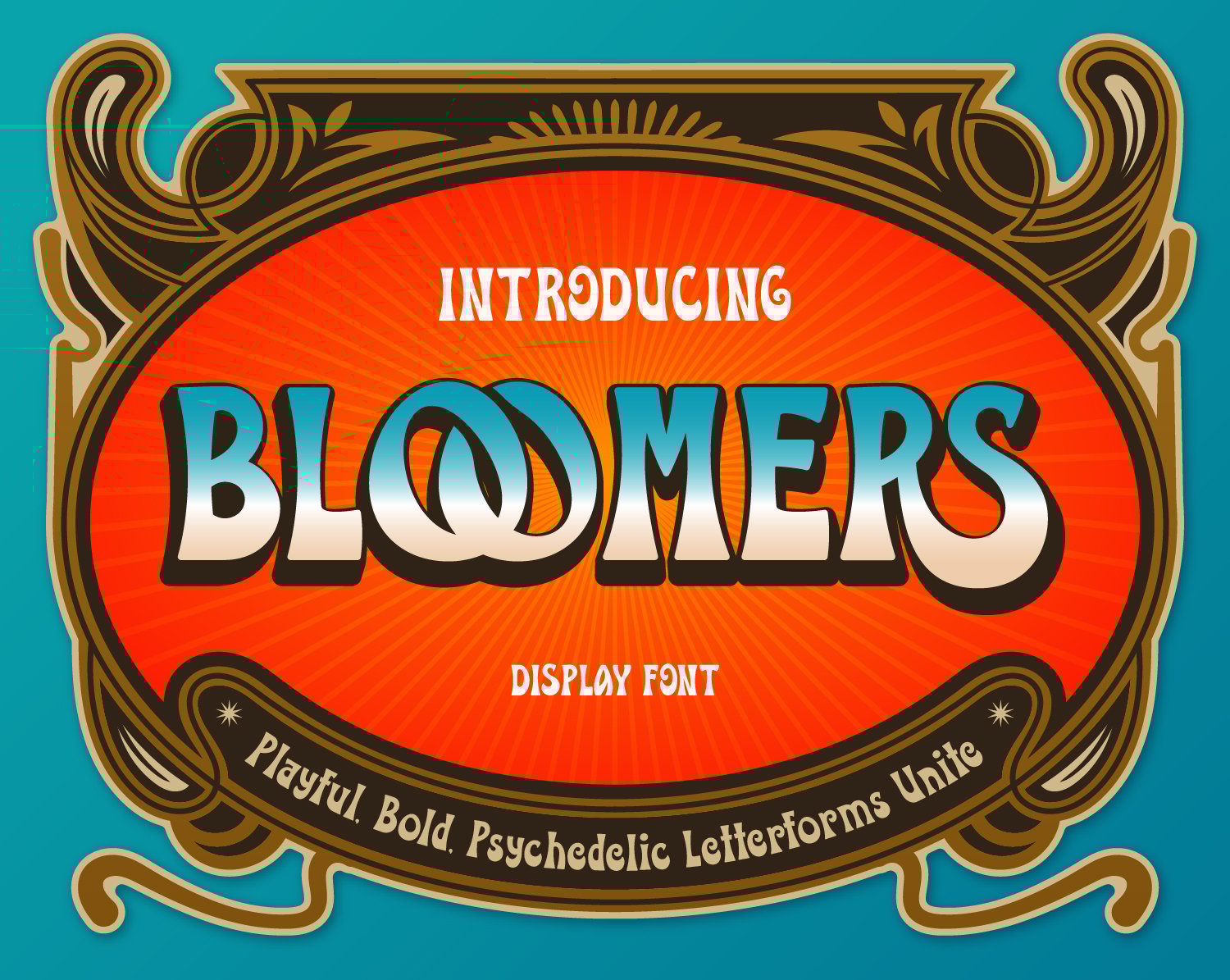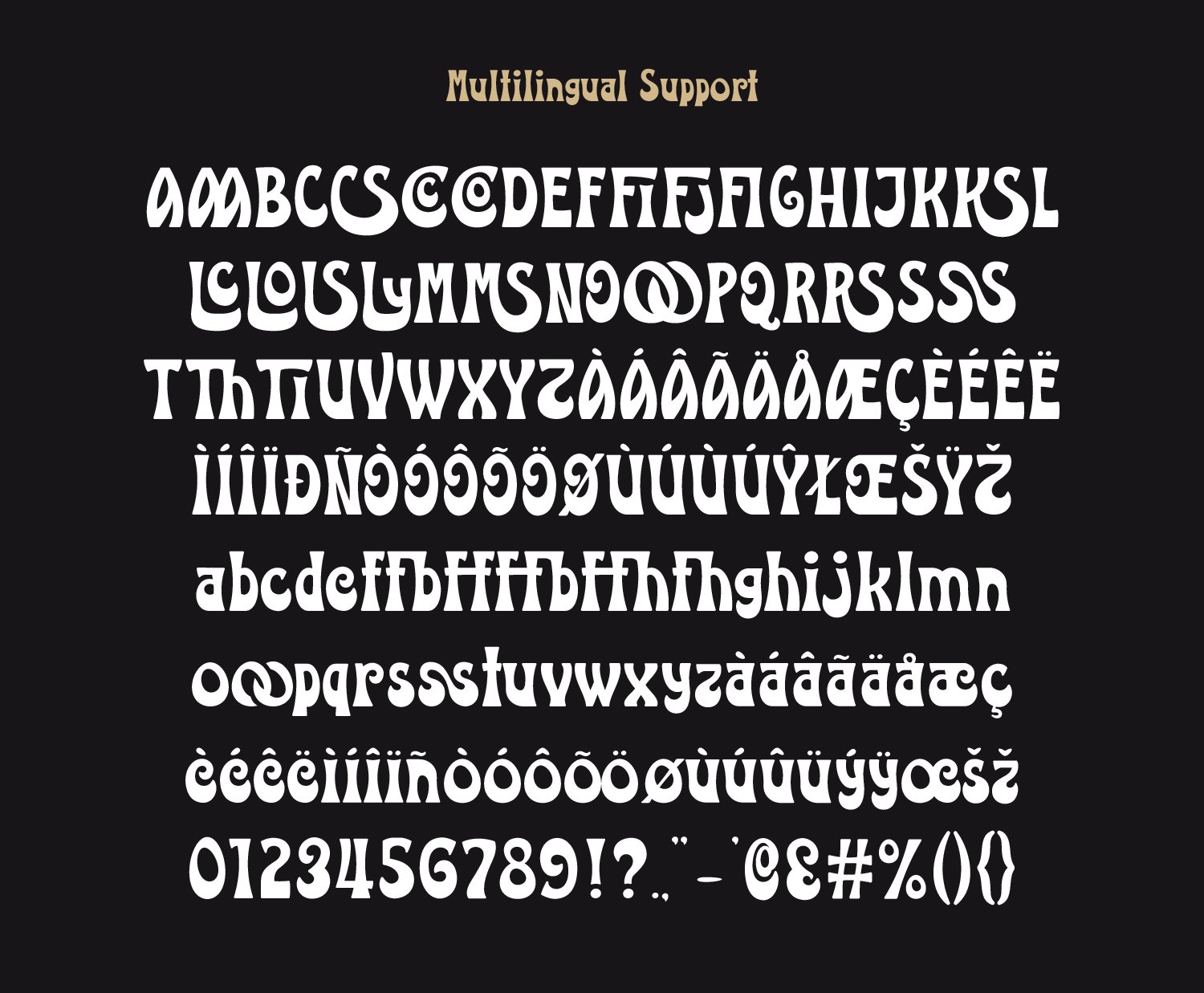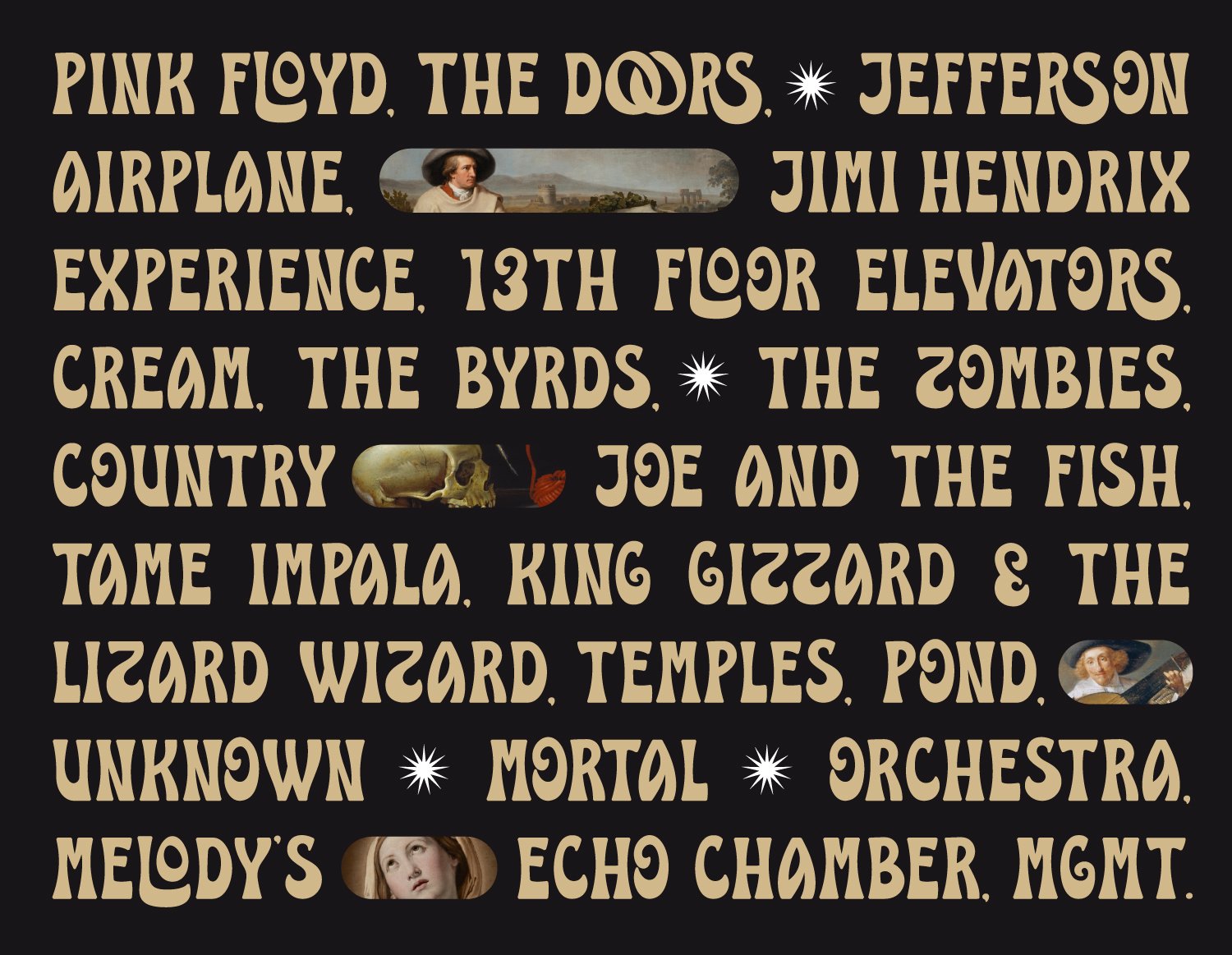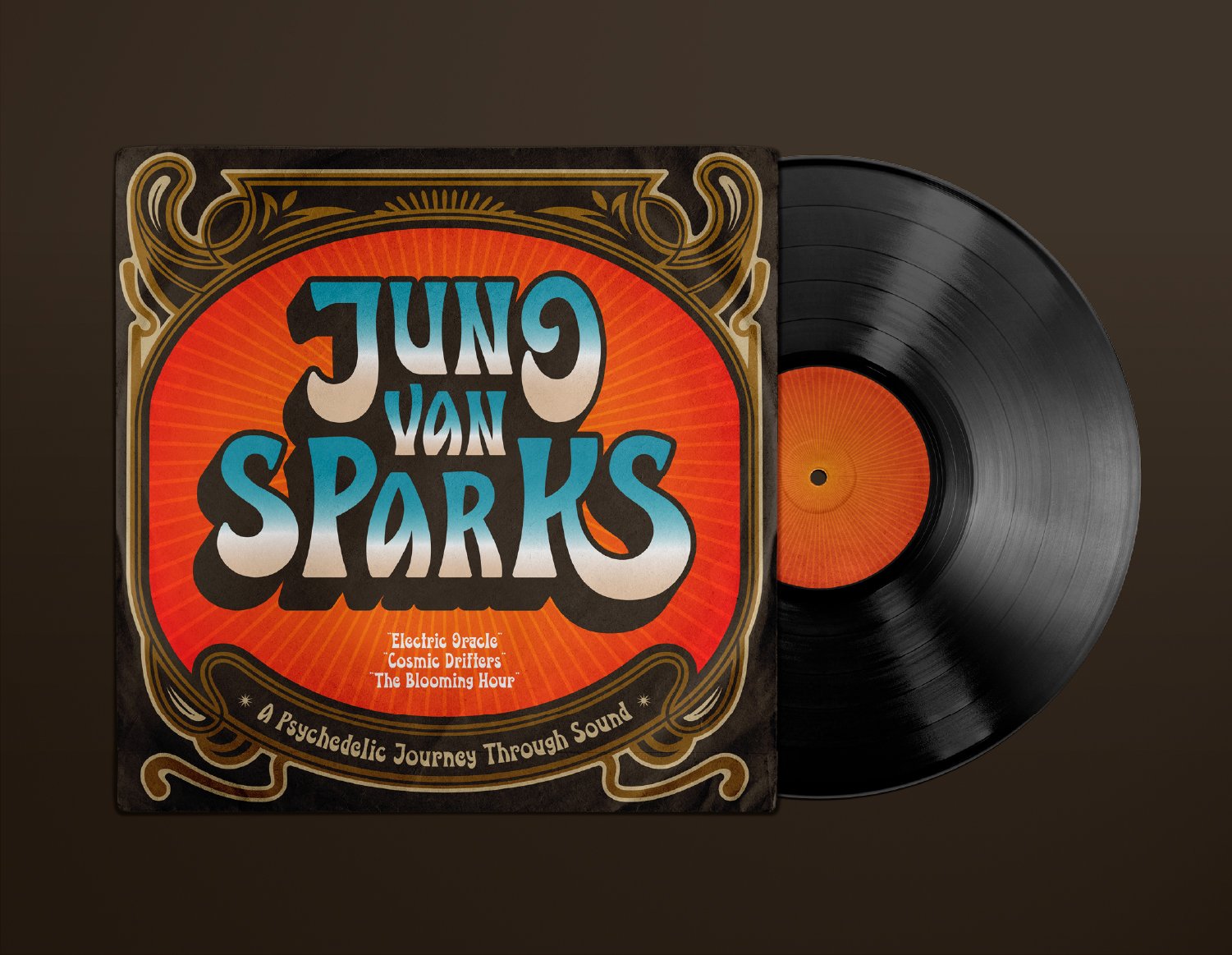
BLOOMER - Psychedelic Font
Bloomers is a bold psychedelic display font that blends retro groove with playful modern flair. Its flowing, bulbous letterforms echo the spirit of 60s–70s rock posters, while eccentric ligatures like “OO,” “SS,” and “AT” add organic rhythm and eye-catching personality. Perfect for concert posters, album covers, experimental branding, or anything that craves loud visual energy, Bloomers isn’t just a font — it’s a visual experience rooted in rebellion, music, and expressive design.